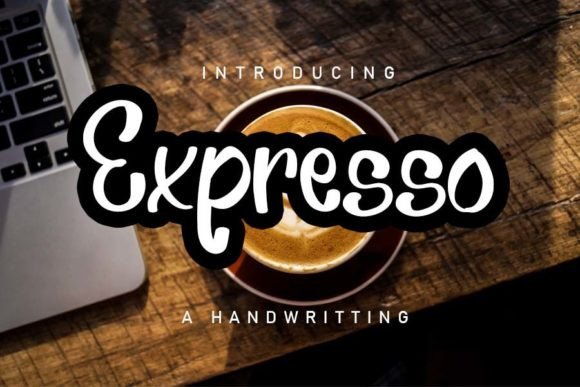
Dive into the world of authentic charm with Expresso Font, a delightful script font family that embodies the spirit of love. Crafted by the ingenious minds at Snowman Studio, Expresso is not just a font; it's an invitation to add a touch of heartfelt elegance to all your designs. With its playful and friendly handwritten style, Expresso transforms ordinary words into captivating expressions of emotion.
Indulge in the unique charm of Expresso and let your creativity soar. Its graceful strokes and flowing lines dance across the page, adding a touch of warmth and personality to every project. Whether you're creating heartfelt greeting cards, eye-catching social media posts, or stunning logos, Expresso will elevate your designs to new heights.
Unleash your imagination and explore the endless possibilities that await you with Expresso Font. Dive into a world of love-inspired designs that resonate with your audience and leave a lasting impression. Expresso is the key to unlocking your creative potential and captivating the hearts of all who encounter your work. Embrace the beauty of handcrafted fonts and let Expresso guide you on a journey of artistic expression.